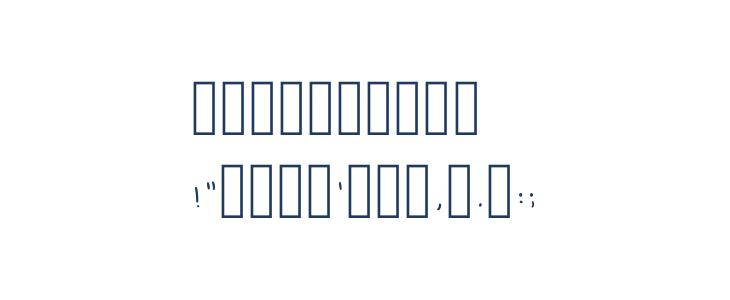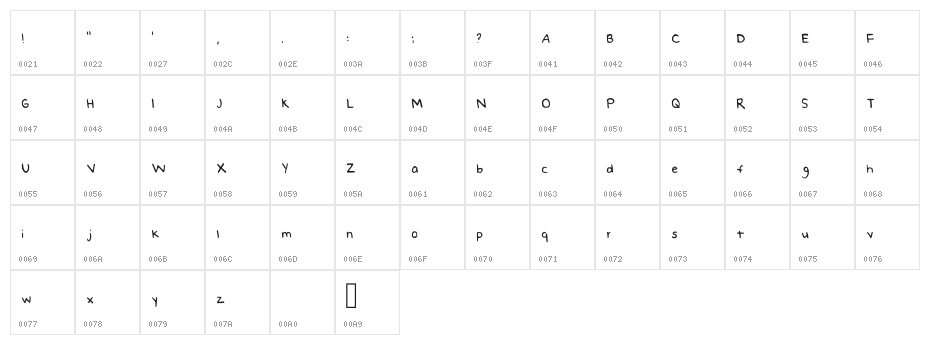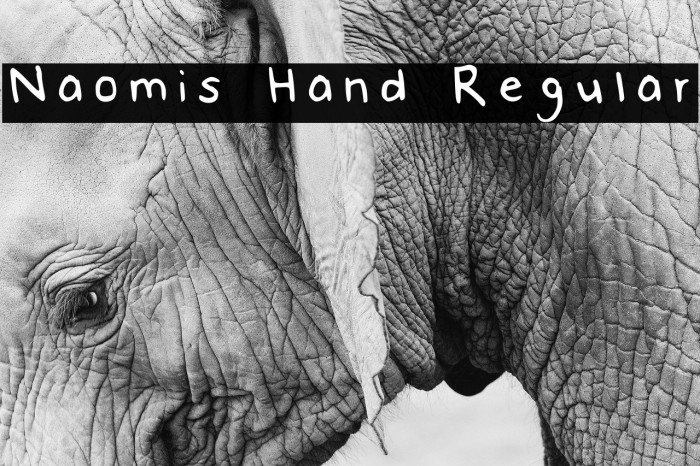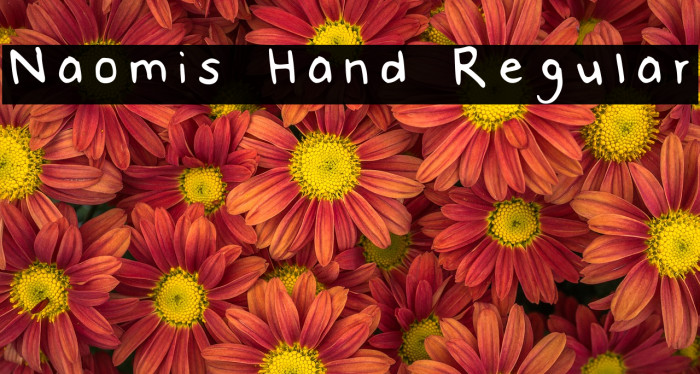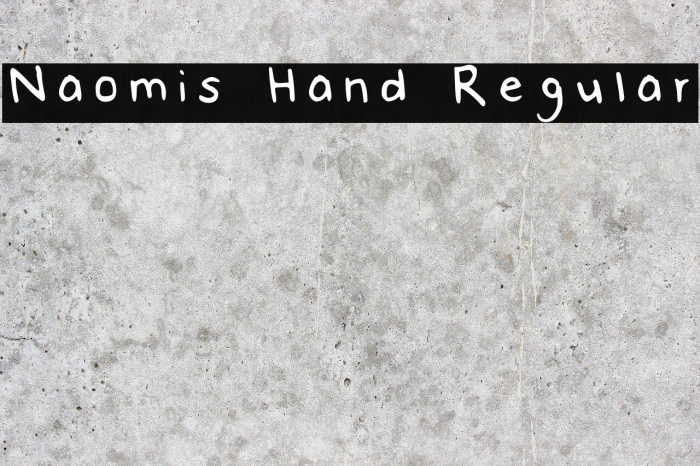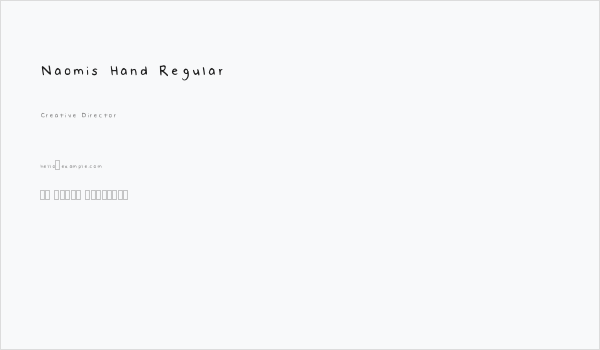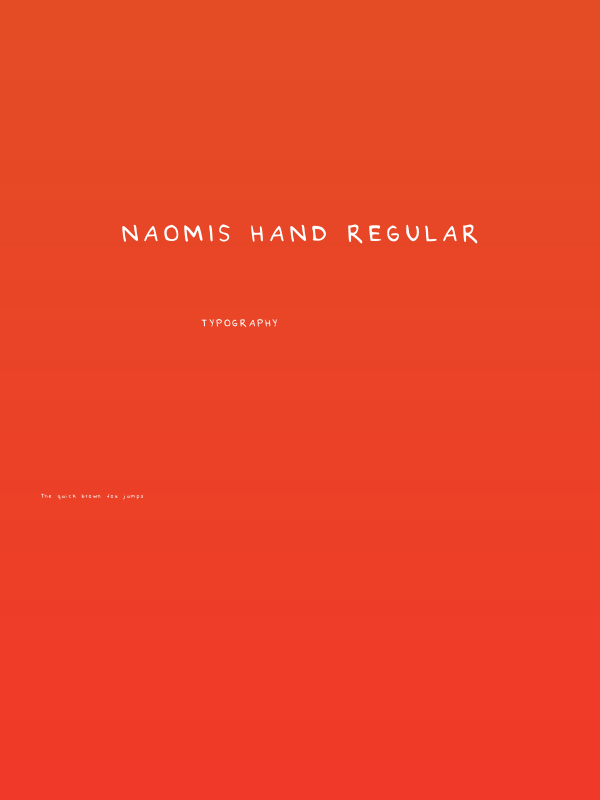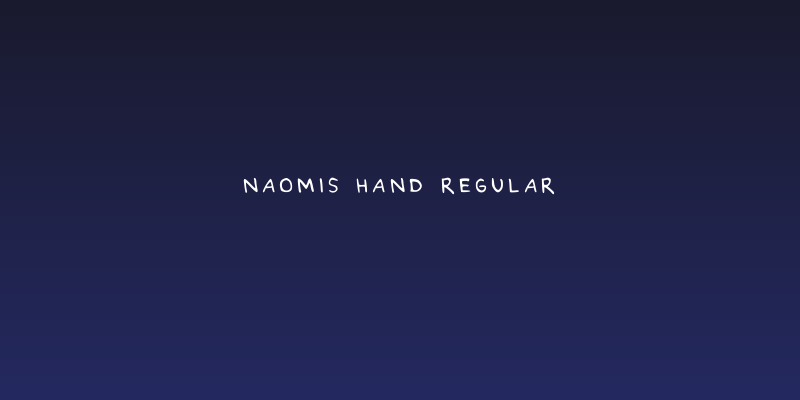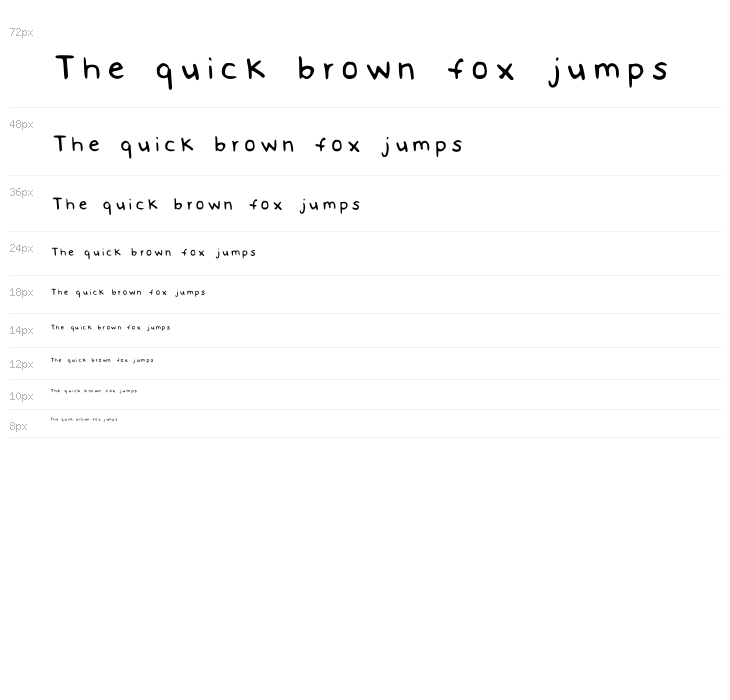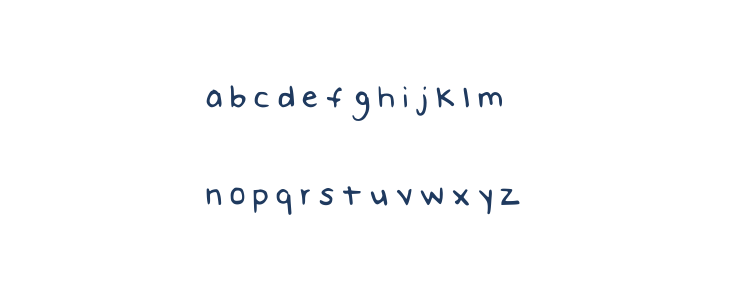
Naomis Hand Regular Font
Naomis Hand Regular Description
This font exudes a playful and casual handwritten style, characterized by its uneven strokes and organic flow. The letters have a natural, slightly irregular shape that mimics the look of handwriting, giving it a personal and approachable feel. The uppercase and lowercase letters maintain a consistent style, with rounded edges and a slight tilt that adds to its charm. The numerals and special characters follow the same aesthetic, ensuring a cohesive look across all text elements. This font is perfect for projects that require a touch of personality and warmth.